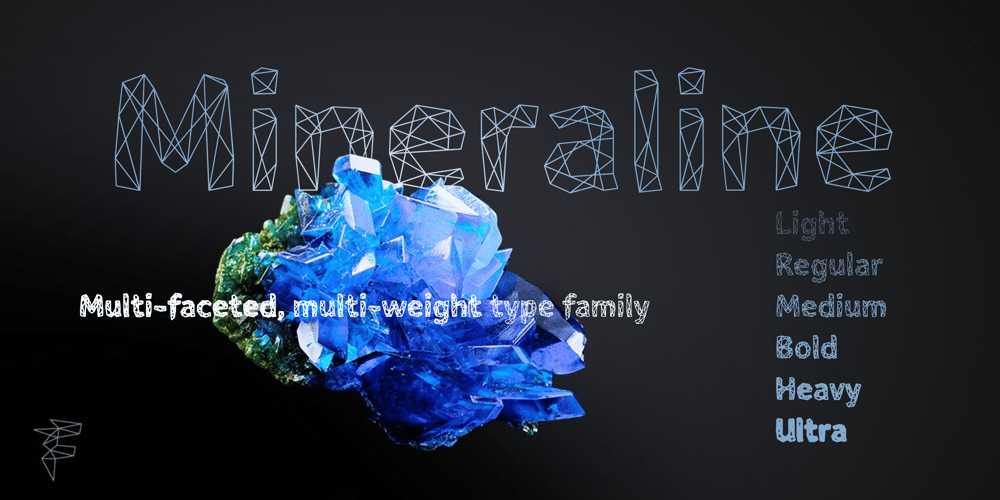
Mineraline Font Family was designed by Ian Clewett and published by Formation Type Foundry. Mineraline contains 6 styles and family package options. Mineraline is inspired by the crystalline, faceted forms of minerals. This unique display typeface is made of a complex linear structure, giving the letterforms a dynamic, intricate and dimensional feel – especially suited to display use in very large sizes. The unique linear structure allows the line-weight of the character framework to be varied, to give the family a varying ‘visual’ weight, rather than altering the traditional stroke width. Used at smaller sizes, the type is incredibly detailed, almost woven looking. At larger display sizes the framework and bevelled joints become more obvious and striking. From the delicate Light through to the solid and angular Ultra, Mineraline is perfect to give your work a distinctive, modern and creative edge. Its multiple weights are ideally suited to work across Branding, Logo & Identity, Retail, Point of Sale, Packaging, Advertising, Fashion, Digital and Film, or any other experimental graphic and typography tasks.